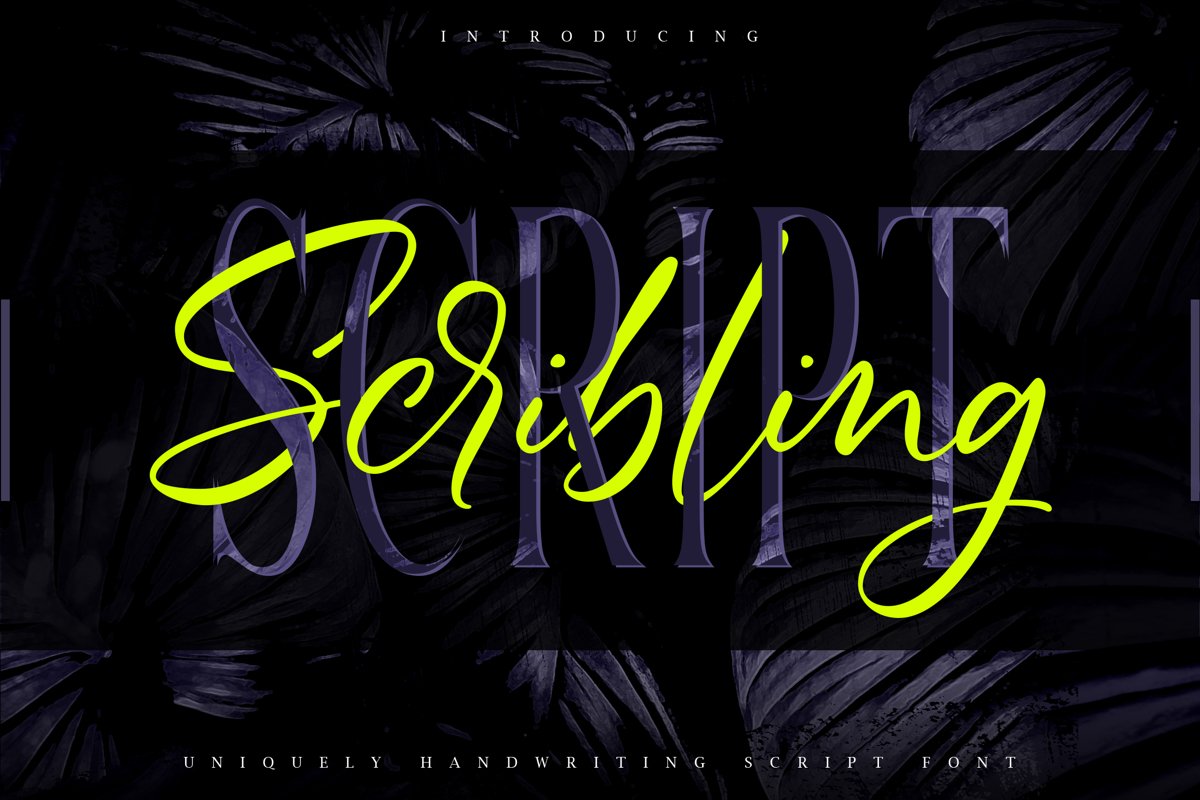
Scribbling | Uniquely Handwriting Script Font
Scribling
**Scribbling | Uniquely Handwriting Script Font** with a calligraphy style, So beautiful on invitation like greeting cards, branding materials, business cards, quotes, posters, and more!
* Alternates and Ligatures